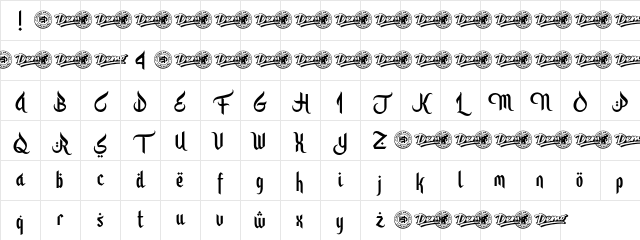
Complete Sketsa Ramadhan Regular glyph index. Displaying only characters natively supported by Sketsa Ramadhan Regular font.
Sketsa Ramadhan is a composed and adaptable typeface that performs quietly and consistently across a wide range of design contexts.